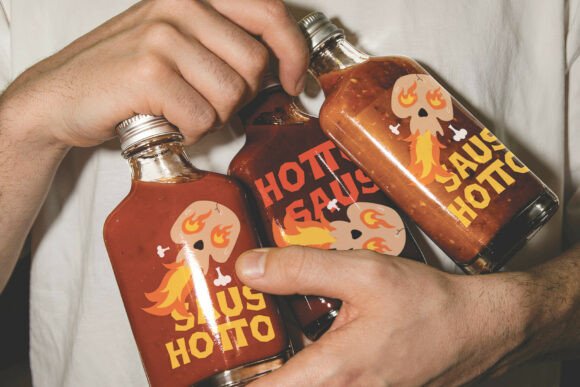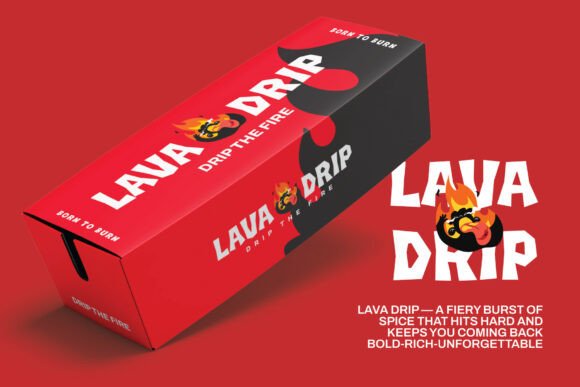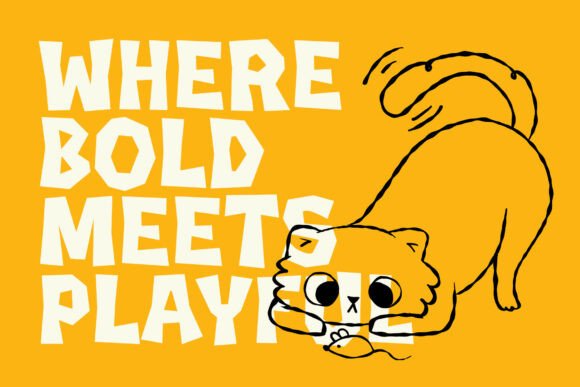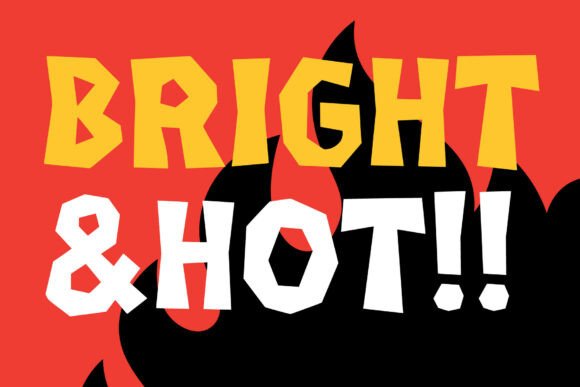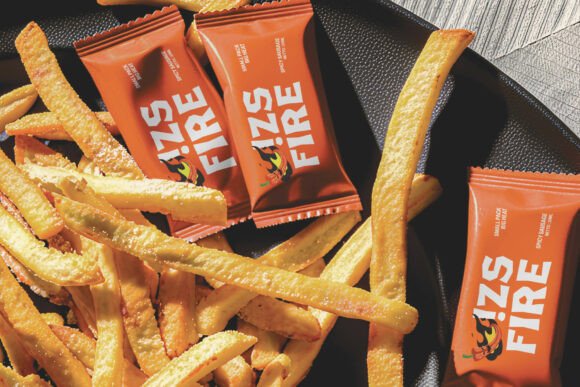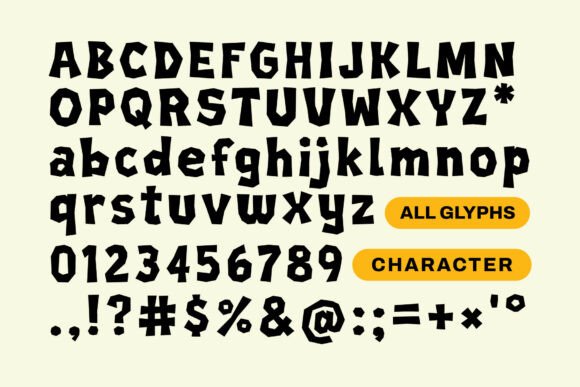
Introduction to Proske Font
Get into the groove with Proske Drawn, a funky display typeface that captures the vibrant, paper-cut aesthetic of the 1970s.
This ultra-bold font features irregular, angular edges and โwonkyโ geometric letterforms that radiate a hand-made, retro energy With its heavy weight and playful flower-power accents, Proske Drawn is the premier choice for vintage-inspired snack packaging, independent vinyl record store branding, high-energy festival posters, and high-impact โretro-revivalโ social media headers.